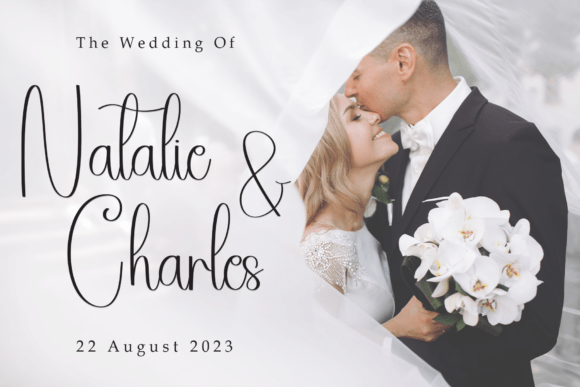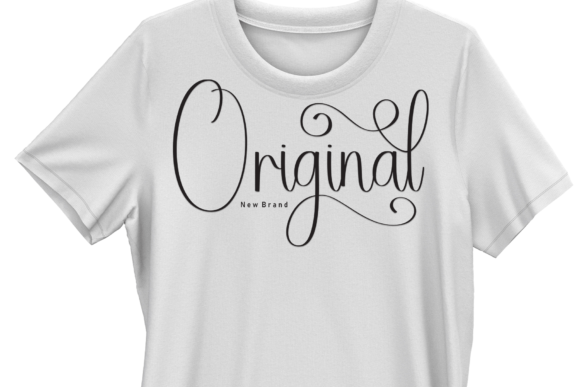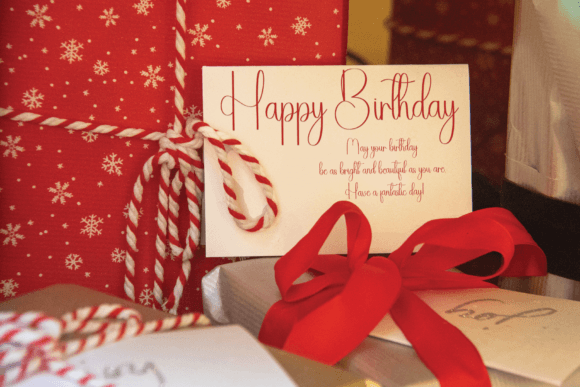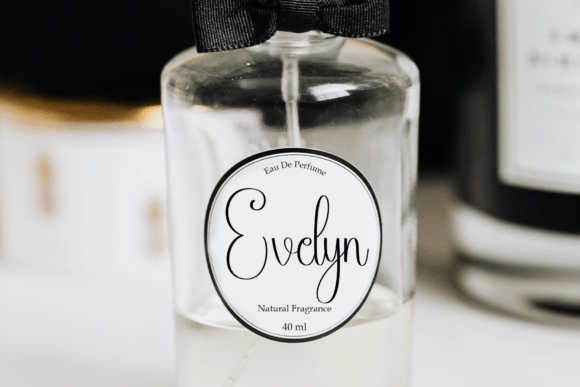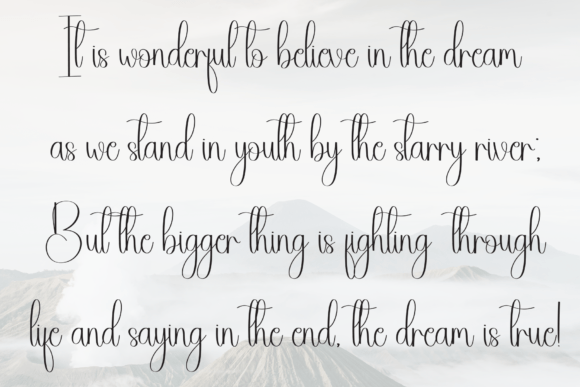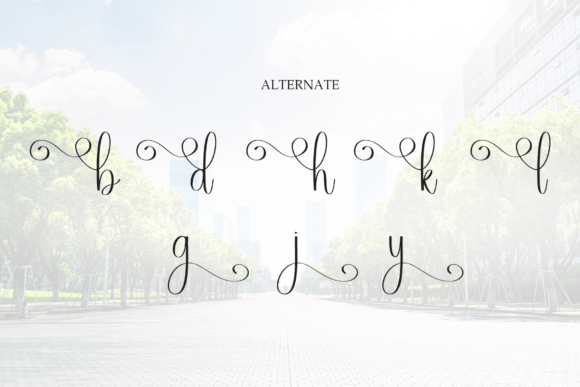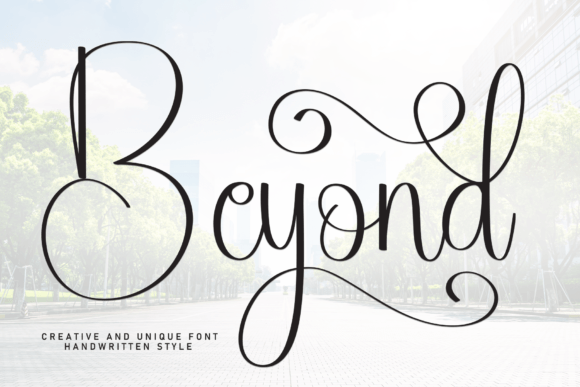
The Quest for the Perfect Font: Discovering Beyond
I’ll never forget the time I was working on a wedding invitation project, and my client asked for a font that was “fun, yet elegant.” I scoured the internet, tried out dozens of fonts, but nothing seemed quite right. That was until I stumbled upon Beyond, a sweet and friendly handwritten script font that stole my heart. In this article, I’ll share my journey with Beyond, its features, and how to make the most of this beautiful font.
A First Impression: What I Love About Beyond
Beyond is indeed a gem! Here are a few things that make it stand out:
• ✨ Sweet and Friendly: Beyond has a warm, approachable feel that’s perfect for designs that need a personal touch.
• ✅ Highly Legible: Despite its script nature, Beyond is surprisingly easy to read, even at smaller font sizes.
• 🎉 Versatile: This font can be used for a wide range of projects, from wedding invitations and cards to social media graphics and more.
No font is perfect, and Beyond is no exception. Here are a few things to keep in mind:
• 🤔 Limited Formality: Beyond is a casual, handwritten font, so it may not be the best choice for very formal or corporate designs.
• ⚠️ Glyph Limitations: While Beyond has a range of glyphs and alternates, it’s not as extensive as some other fonts on the market.
The Story Behind Beyond
Beyond was designed by a team of creatives who wanted to create a font that was both fun and elegant. Inspired by classic handwritten scripts, Beyond combines the best of both worlds to create a unique and versatile font.
What is Beyond? Beyond is a sweet and friendly handwritten script font.
Is Beyond suitable for formal designs? No, Beyond is a casual font that’s best suited for designs that need a personal touch.
Does Beyond come with OpenType features? Yes, Beyond includes a range of OpenType features, including glyphs and stylistic alternates.